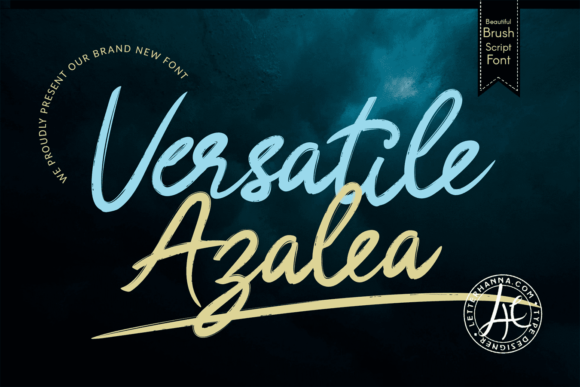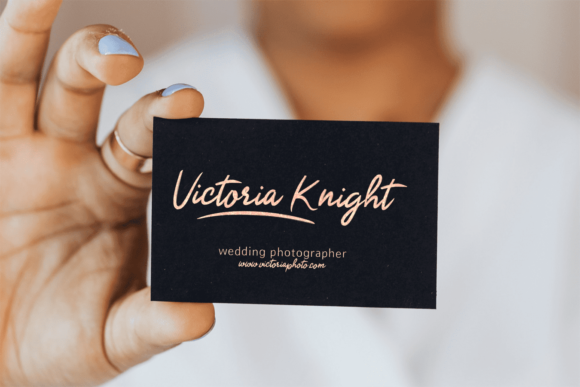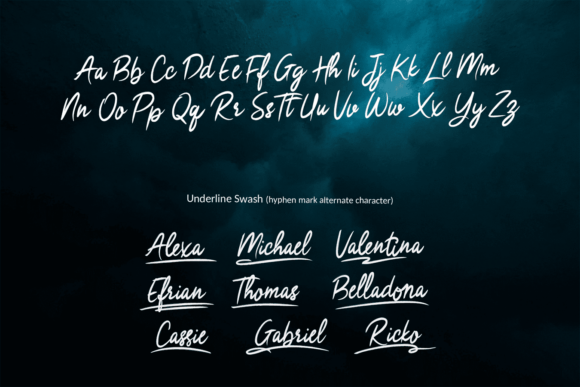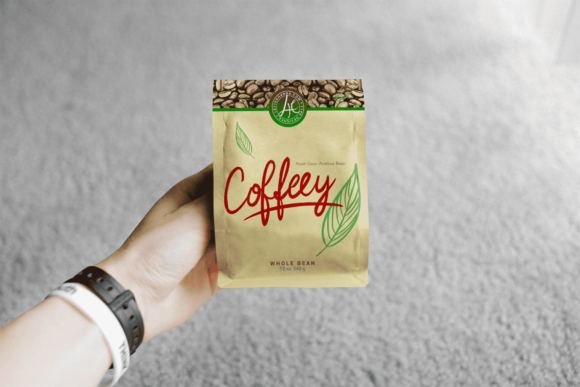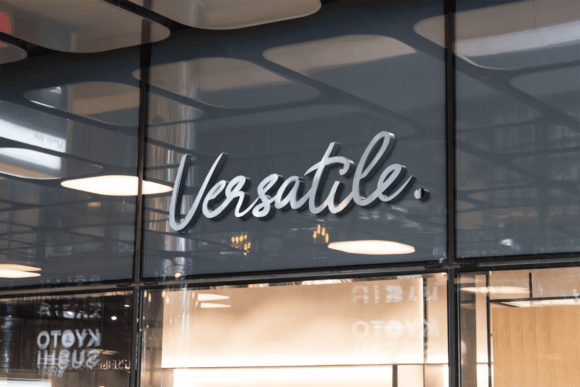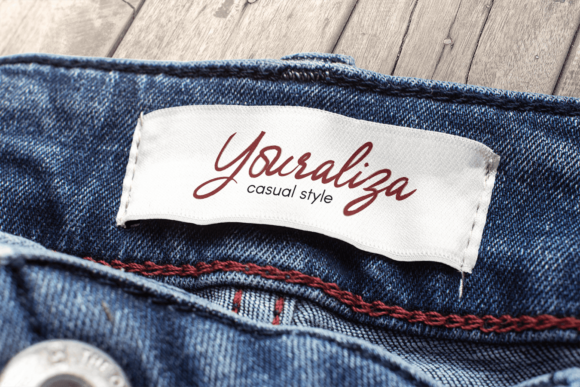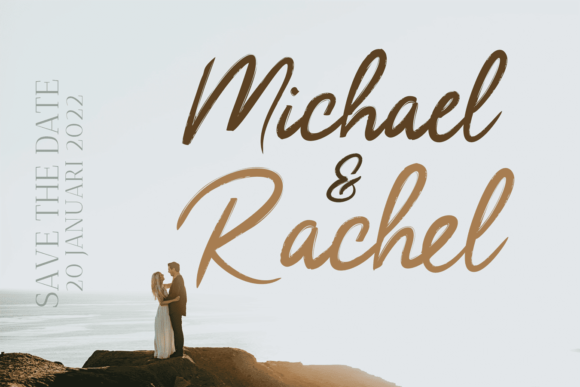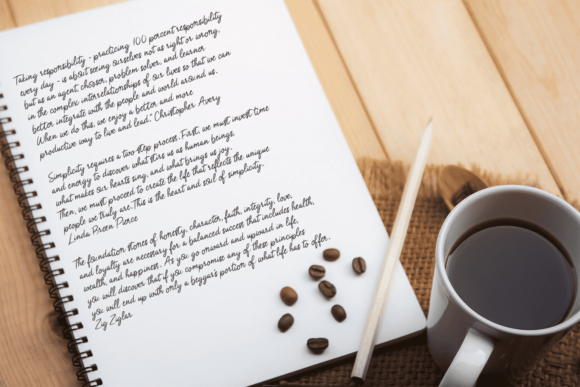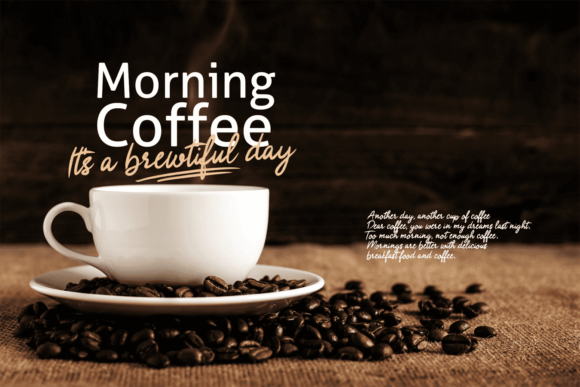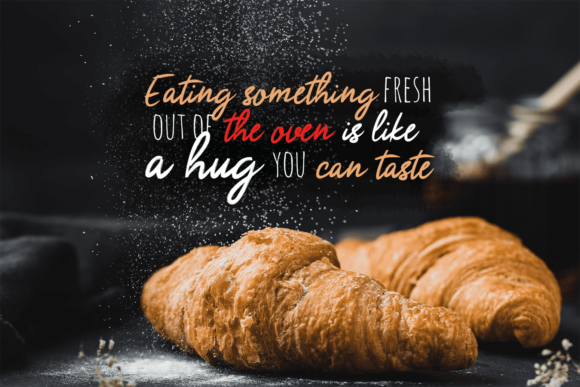
Versatile Azalea Font
About Versatile Azalea Font
Introducing “Versatile Azalea,” a superb brushed handwritten font designed to elevate your designs with its elegant and lovely calligraphy. With its graceful strokes and versatile style, Versatile Azalea adds a touch of sophistication to any design project.
Whether you’re creating logos, branding materials, invitations, social media posts, or any other design that requires a touch of elegance, Versatile Azalea delivers stunning results. Its brushed texture and handwritten feel bring warmth and personality to your designs, making them stand out with effortless charm.
The PUA encoding of Versatile Azalea ensures that you can access all glyphs and swashes with ease, allowing you to customize your designs and add decorative elements as desired. Whether you’re embellishing your typography with flourishes or creating unique letter combinations, Versatile Azalea offers endless possibilities for creative expression.
Experience the beauty and versatility of Versatile Azalea and watch as it transforms your designs into captivating works of art. Whether you’re a professional designer or a passionate enthusiast, this font invites you to explore new possibilities and express yourself with confidence and style.
Unlock the full potential of your designs with Versatile Azalea and let its superb brushed handwritten font elevate your projects to new heights. With its elegant calligraphy and PUA encoding for easy access to glyphs and swashes, Versatile Azalea is sure to become a cherished addition to your design toolkit, inspiring creativity and sophistication with every use.